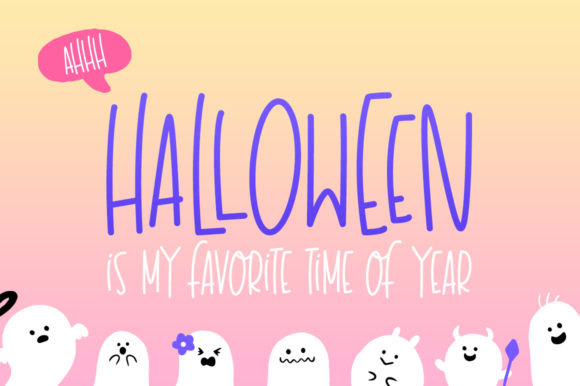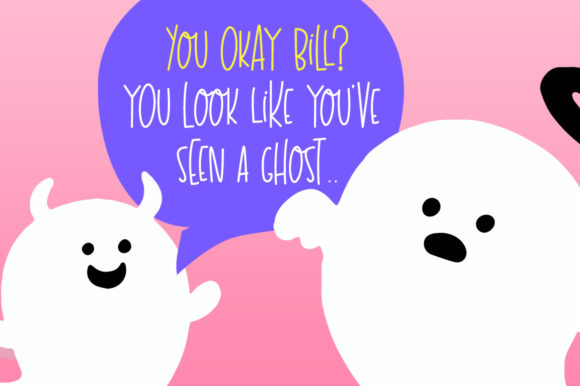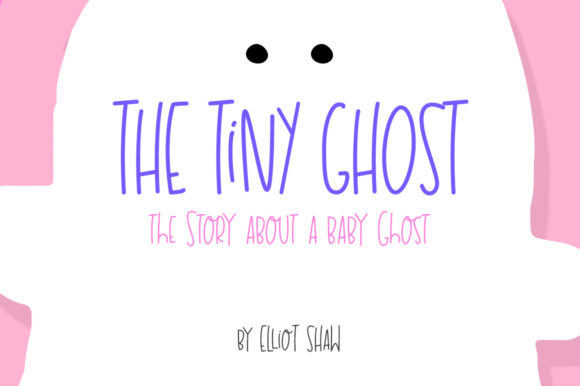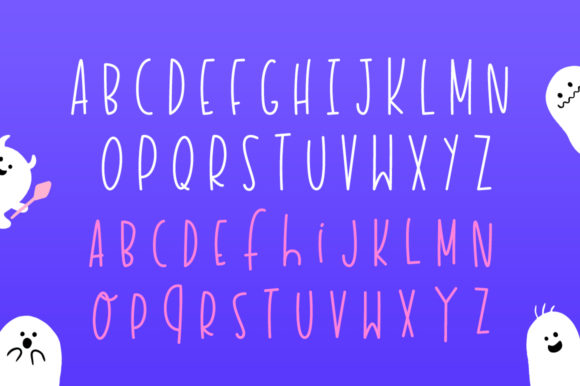
Haunted House Font: A Spooky yet Adorable Addition to Your Font Collection
Are you ready to add a touch of magic to your designs? Look no further than the Haunted House Font! While its name may evoke images of spooky mansions and creepy crawlies, this font is more than just a one-trick pony. Its hand-drawn style makes it a versatile and unique addition to any font collection, perfect for designers and crafters of all kinds.
The Story Behind the Font
The Haunted House Font is a carefully crafted font that is sure to cast a spell on your audience. Its design is inspired by the classic haunted houses of literature and film, with a dash of whimsy and playfulness. The result is a font that is both adorable and eerie, perfect for a wide range of design projects.
What Makes Haunted House Font So Special?
So, what sets the Haunted House Font apart from other fonts on the market? Here are just a few reasons why designers and crafters are falling in love with this spooky yet sweet font:
- Hand-drawn style: The Haunted House Font is a hand-drawn font, which gives it a unique and personal touch. Each letter is carefully crafted to create a sense of whimsy and charm.
- Versatile: While the Haunted House Font may have a spooky theme, it’s perfect for a wide range of design projects, from Halloween-themed designs to everyday crafts.
- Adorable: The Haunted House Font is undeniably cute, making it perfect for designers and crafters who want to add a touch of personality to their work.
Uses for Haunted House Font
The Haunted House Font is a versatile font that can be used for a wide range of design projects, including:
- Halloween-themed designs: The Haunted House Font is perfect for creating spooky yet fun Halloween-themed designs, from party invitations to trick-or-treat tags.
- Crafting: The Haunted House Font is a great addition to any crafter’s font collection, perfect for creating handmade cards, gift tags, and other paper crafts.
- Sign making: The Haunted House Font is a great choice for creating eye-catching signs, from welcome signs to directional signs.
- Digital designs: The Haunted House Font can also be used for digital designs, such as social media graphics, blog posts, and more.
Tips for Using Haunted House Font
Here are a few tips for getting the most out of the Haunted House Font:
- Experiment with different colors: The Haunted House Font looks great in a variety of colors, from bright and bold to muted and pastel.
- Mix and match with other fonts: The Haunted House Font pairs well with a variety of other fonts, so don’t be afraid to experiment with different combinations.
- Use it for headings and titles: The Haunted House Font is perfect for headings and titles, where its unique and playful style can really shine.
Don’t be scared – the Haunted House Font is a wonderful addition to any font collection! Its hand-drawn style makes it both adorable and unique, perfect for designers and crafters of all kinds. Whether you’re creating Halloween-themed designs or just want to add a touch of magic to your everyday crafts, the Haunted House Font is a great choice. So why wait? Grab it now and start creating some magical new designs!